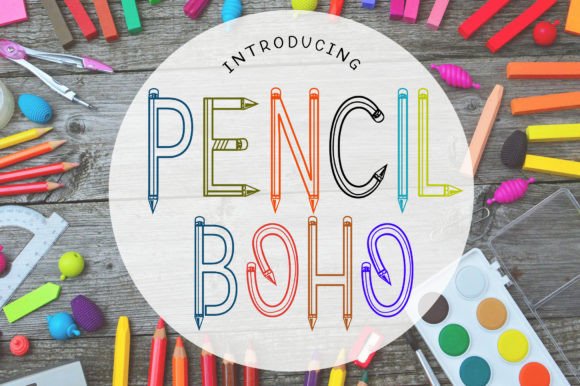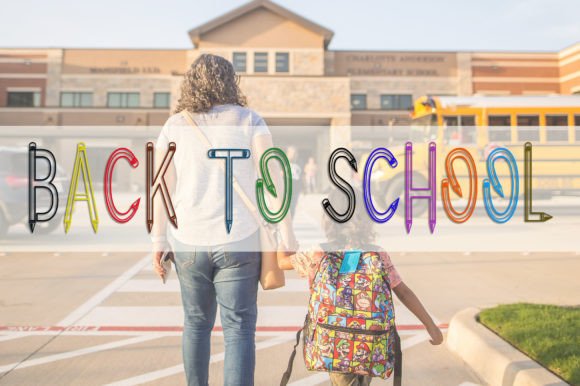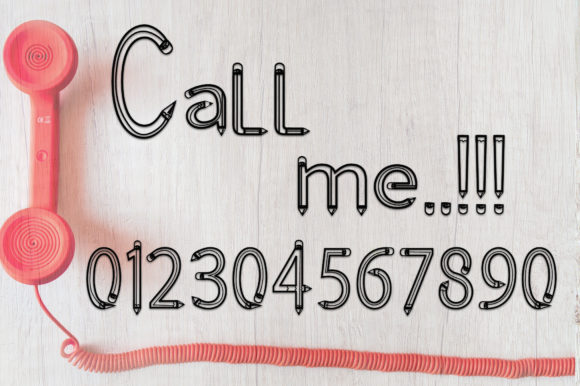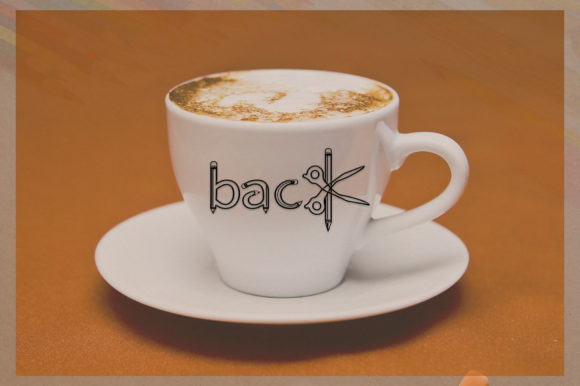
Pencil Boho Font
About the Pencil Boho Font
Meet Pencil Boho Font, a stunning font that brings a touch of elegance and professionalism to any design. Pencil Boho is an adorable quirky decorative font. It will add an incredibly joyful touch to your designs. Fall in love with its playful style and use it to create beautiful stationery art, eye-catching social media posts, a variety of design ideas, and much more!
Pencil Boho’s playful character makes it ideal for headlines, short text blocks on social media, branding for whimsical businesses (e.g., children’s products, artisan crafts), and eye-catching packaging designs. However, its decorative nature makes it less suitable for body text or UI elements where readability is paramount. Avoid using it for large blocks of text or applications requiring high levels of legibility.
This font pairs well with clean sans-serif fonts like Lato or Open Sans for a balanced contrast, or a classic serif like Merriweather for a touch of sophistication. For a more playful feel, consider pairing it with a handwritten script font, but ensure legibility remains a priority in the overall design.
Pencil Boho exudes a lighthearted, friendly personality, best suited for brands aiming for a youthful, approachable image. Its quirky details add visual interest without overwhelming the design, making it a versatile option for projects requiring a touch of handcrafted charm.